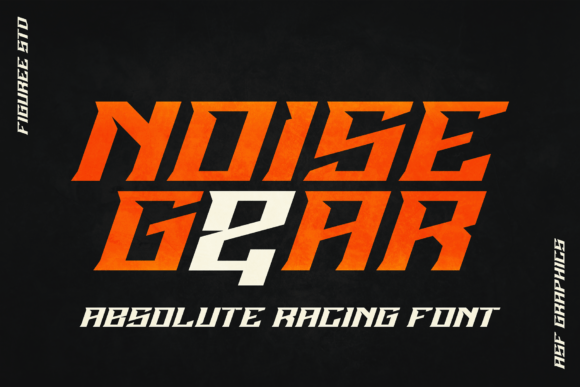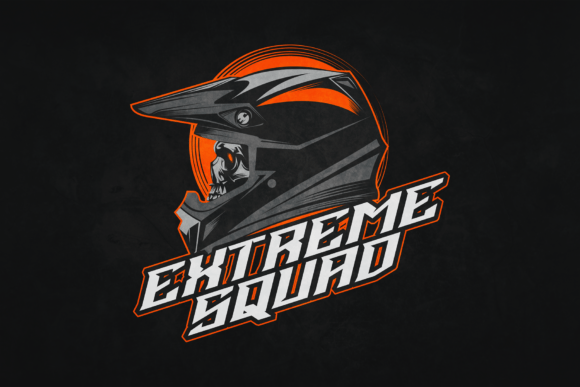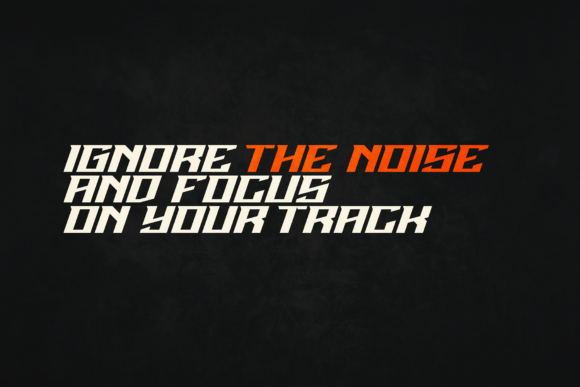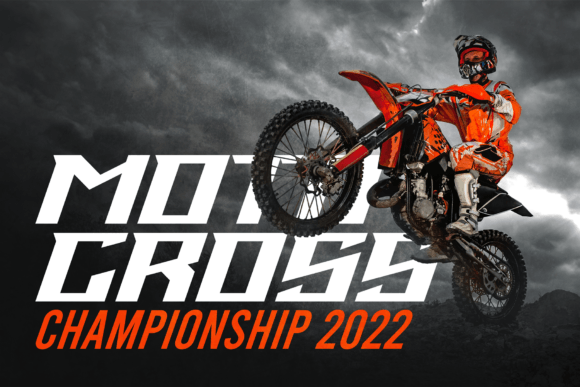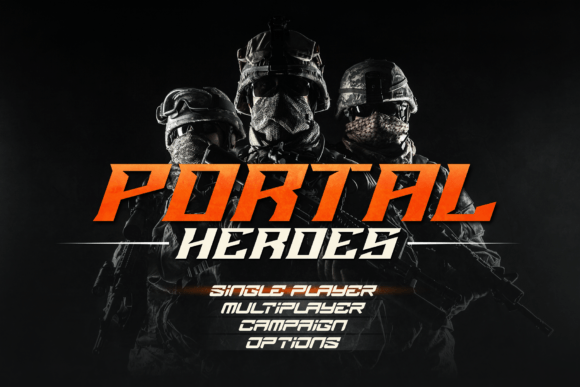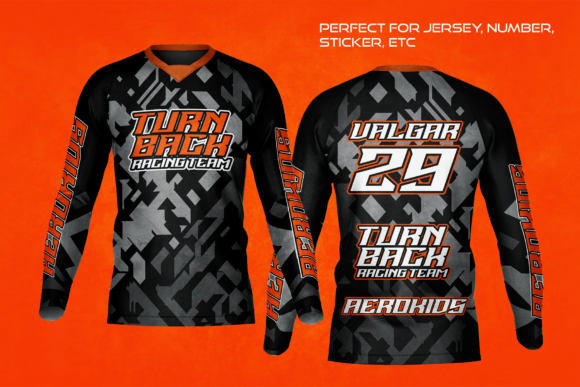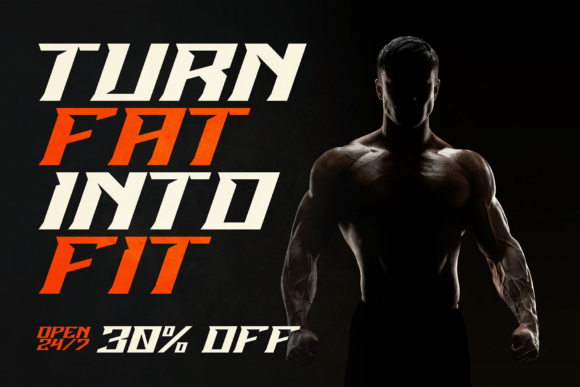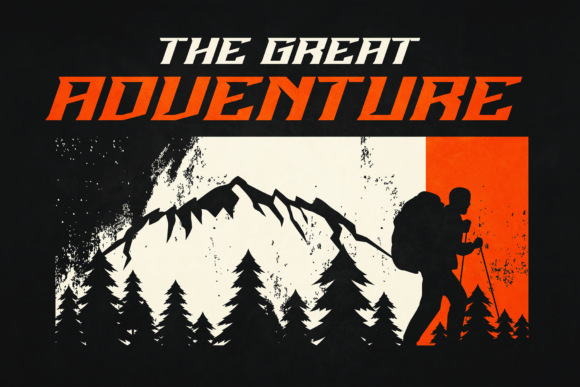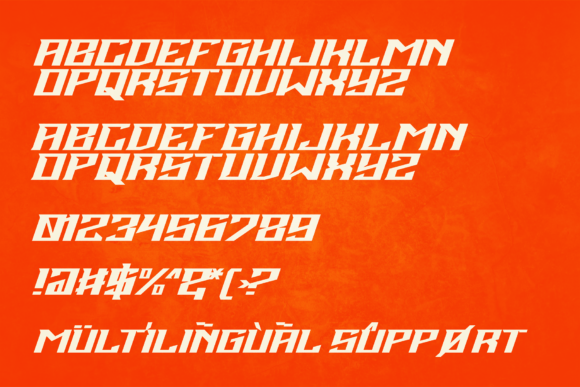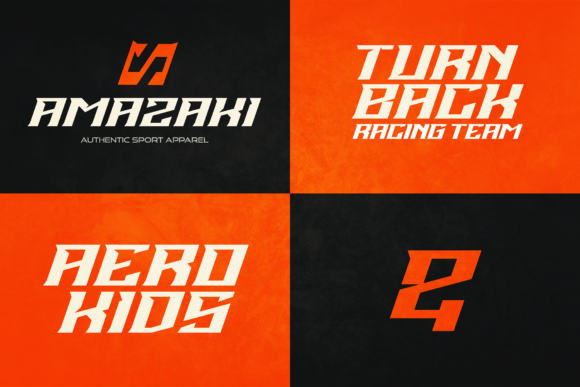
Noise Gear
Noise Gear: A Powerful Racing-Themed Slab Serif Font
Noise Gear is a powerful racing-themed slab serif font designed for automotive and sports applications. This dynamic typeface brings bold impact to various creative projects, from jerseys and logos to advertising materials.
Key Features of Noise Gear
• Racing Design: Offers powerful automotive-inspired letterforms.
• Bold Style: Features thick, block-like serifs for impact[5].
• Strong Presence: Creates commanding visual statements[7].
• Versatile Appeal: Adapts well to numerous design contexts.
Best Uses for Noise Gear
Thanks to its racing-focused characteristics, Noise Gear works especially well for:
When using Noise Gear in your designs, keep these tips in mind:
• Try it for headlines to showcase its powerful racing style[4].
• Use its bold character for automotive-themed projects.
• Take advantage of its strong presence for impactful designs[5].
• Let its versatility enhance various applications.
To sum up, Noise Gear is an excellent choice for designers seeking a powerful racing-themed slab serif font. Its versatility makes it perfect for various automotive and sports projects. Whether you’re creating jerseys, designing logos, or developing advertising materials, Noise Gear offers the perfect blend of power and racing-inspired style.
Furthermore, Noise Gear’s distinctive design allows it to shine in contexts where both impact and automotive aesthetics are key. From headlines to branding materials, this font can elevate your projects with its dynamic style. Also, its bold appearance works particularly well in designs that aim to make a powerful sporting impact[5][7].
In conclusion, Noise Gear truly captures the essence of racing design in slab serif typography. Its ability to work across different applications shows how well it can serve various automotive and sports-related needs. Therefore, for those wanting to add a touch of racing spirit to their work, Noise Gear can enhance any design with its distinctive style. Ultimately, it’s perfect for designers aiming to make a powerful, racing-focused impact across creative projects.